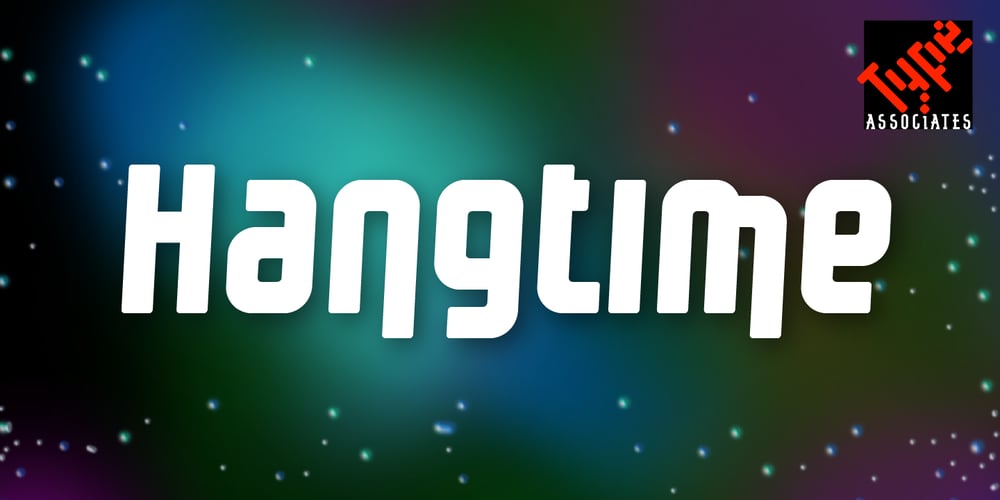
Hangtime Font Family was designed by Russell Bean and published by Type Associates. Hangtime contains 2 styles and family package options. Hangtime Rad and Extra were designed with surf posters in mind, a subject close to my heart as an avid sailboarder and surfer. Its slightly raked (3 degrees) yet vertical appearance makes for compact setting with extreme impact. Hangtime exhibits some quirky terminal features, its shortened upstrokes are balanced by the lengthened strokes of others providing unusually consistent spacing. Best applied to display situations but is readable at text sizes.